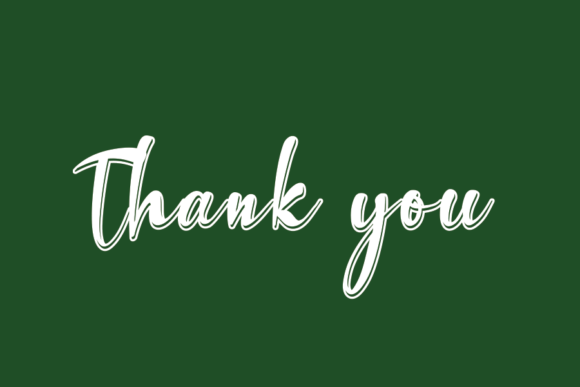
Introduction to Love by Love Font
As a designer, have you ever found yourself pouring over a blank canvas, searching for the perfect combination of words to bring your vision to life? For me, it’s those moments of creative flow that remind me why I love my job. And, quite often, the right font can make all the difference. That’s where the Love by Love Font comes in – a stunning handwritten font that’s about to become your new best friend.
With its classy calligraphic influences and modern twist, the Love by Love Font is a high-quality design resource that’s sure to elevate your creative projects. Whether you’re working on a romantic wedding invitation or a free download for a client, this font is sure to add a touch of elegance and sophistication. Plus, with a transparent background, you can use it on any design without worrying about distractions.
As a valuable addition to your design arsenal, the Love by Love Font is a must-have for any creative professional. So, what are you waiting for? Fall in love with this beautiful font and take your projects to new heights!
Key Features of Love by Love Font
- High-quality design with a transparent background, making it ideal for creative projects.
- Unique characteristics include elegant, cursive script and a romantic vibe, perfect for wedding invitations, greeting cards, and other love-themed designs.
Honest Review: Love by Love Font
I recently had the chance to work with the Love by Love Font, and I must say it’s a great addition to any design project. This free download offers a high quality, elegant script font that’s perfect for creative projects.
One of the things that works well is the transparent background, making it easy to use in any design environment. The font itself is a beautiful blend of modern and classic styles, with a flowing, handwritten feel that’s perfect for titles, headings, and quotes.
The Love by Love Font is a valuable design resource for anyone working on a creative project, from wedding invitations to social media graphics.
- High-quality, elegant script font
- Perfect for titles, headings, and quotes
- Valuable design resource for creative projects
- No bold or italic versions available
- Not suitable for large blocks of text
Overall, I’m impressed with the Love by Love Font. It’s a beautiful, high-quality font that’s perfect for creative projects. While it may have some limitations, it’s a great addition to any design library.
For a high-quality design, use the Love by Love Font on a transparent background.
The Love by Love Font is perfect for creative projects such as wedding invitations, greeting cards, or social media graphics.
Use it to add a touch of elegance and sophistication to your designs.